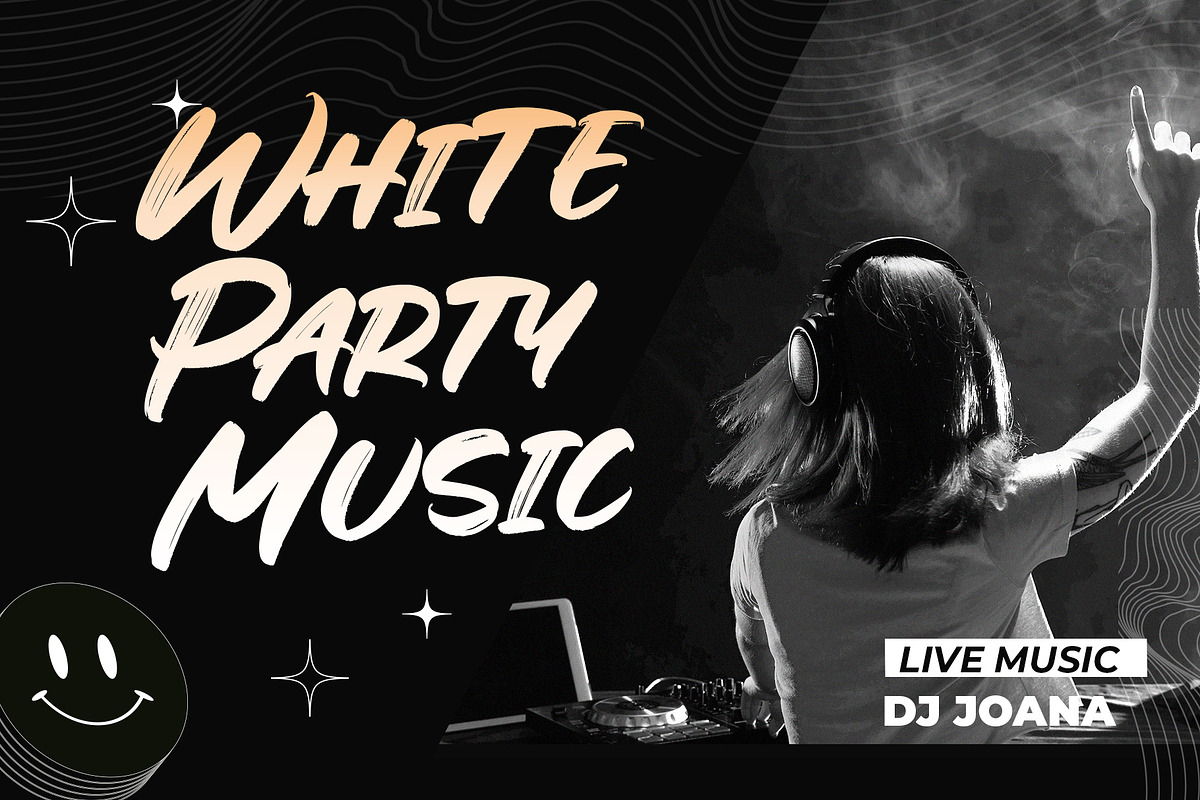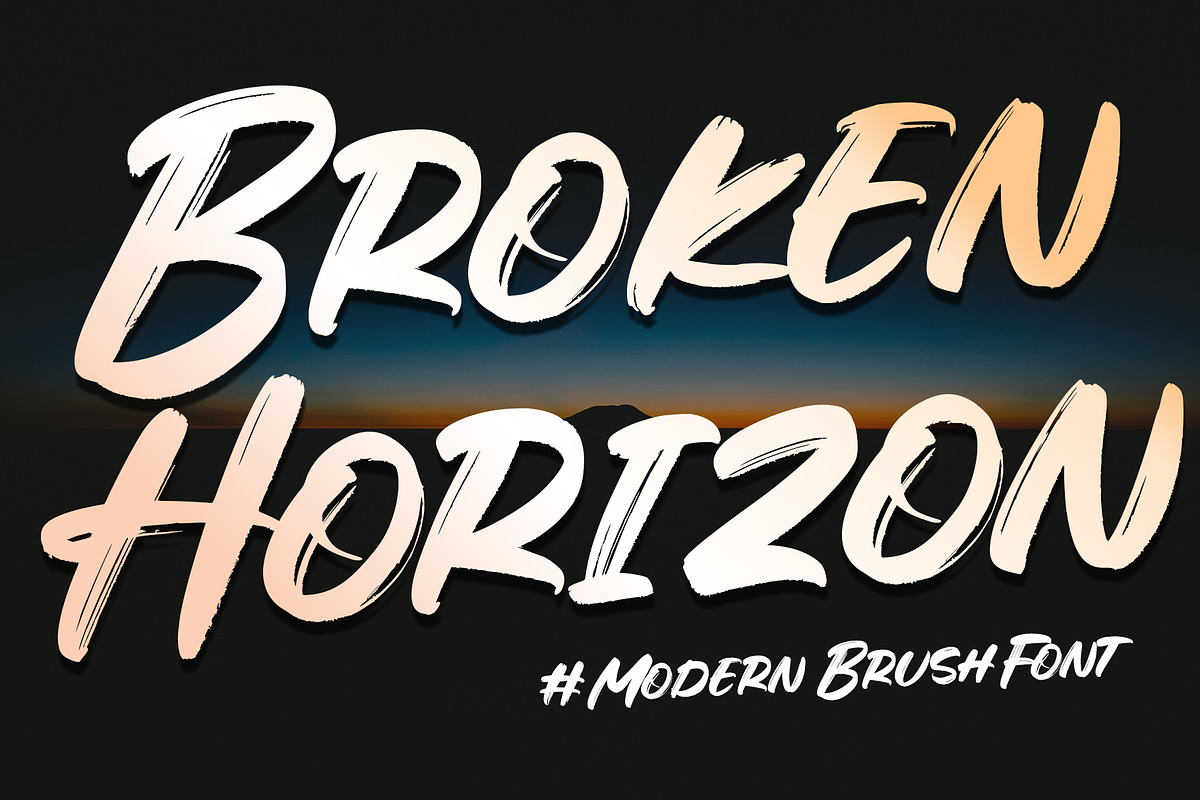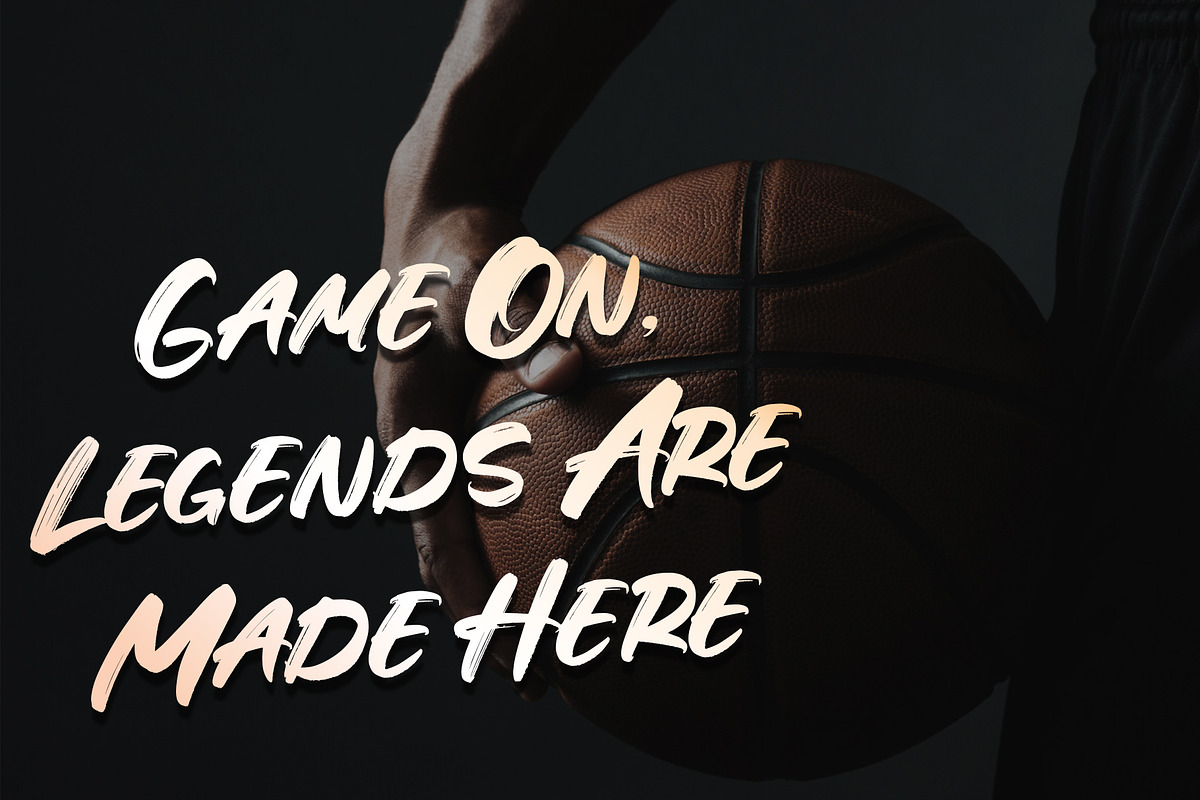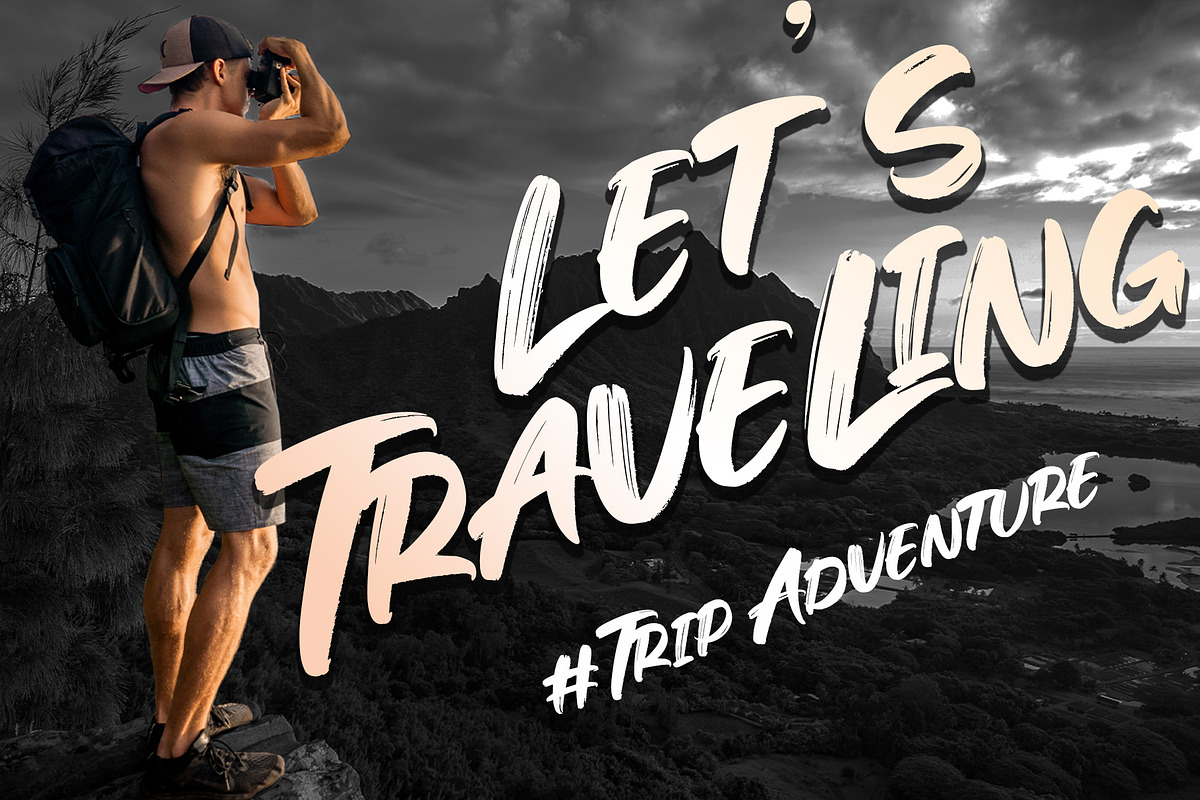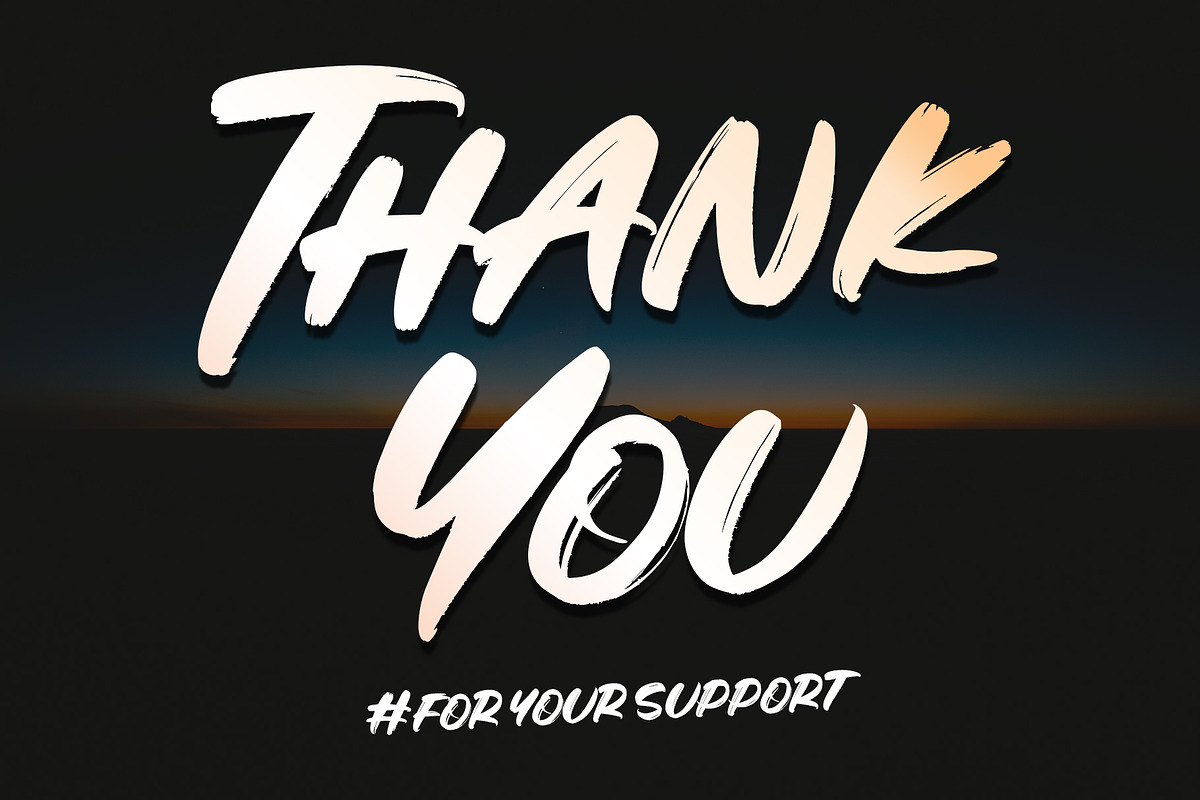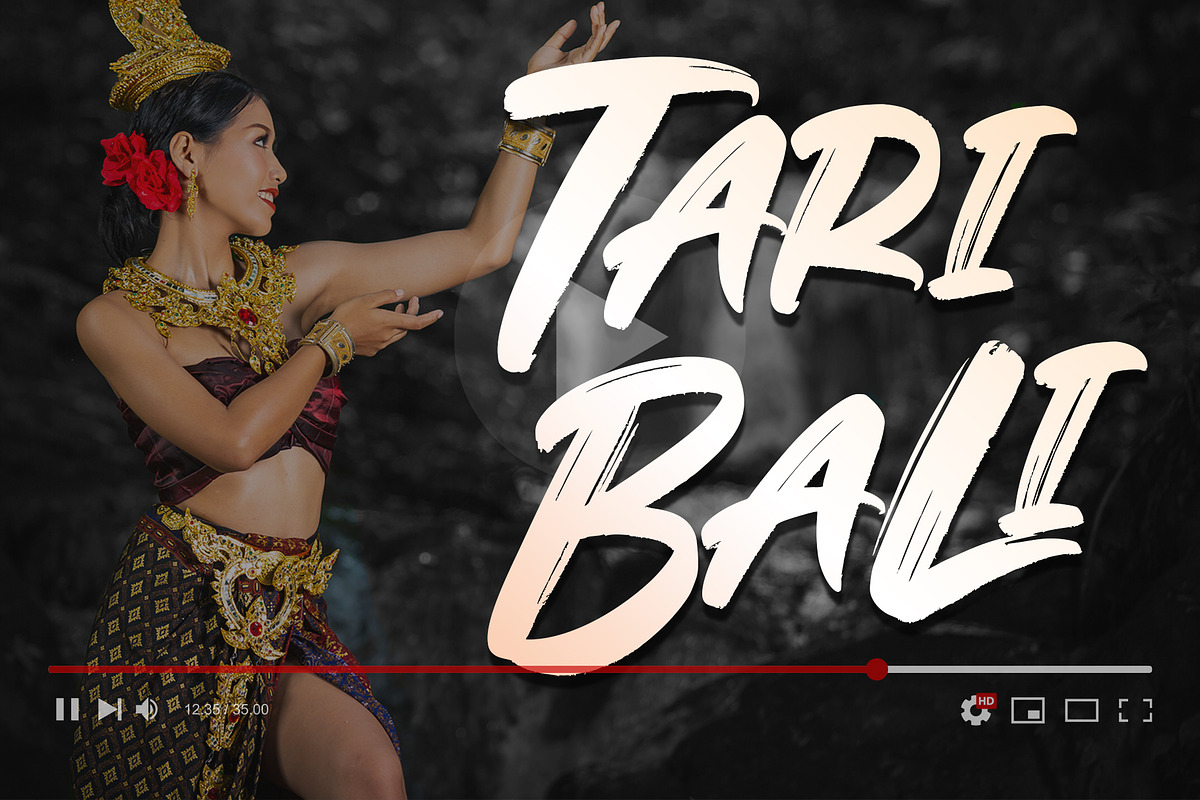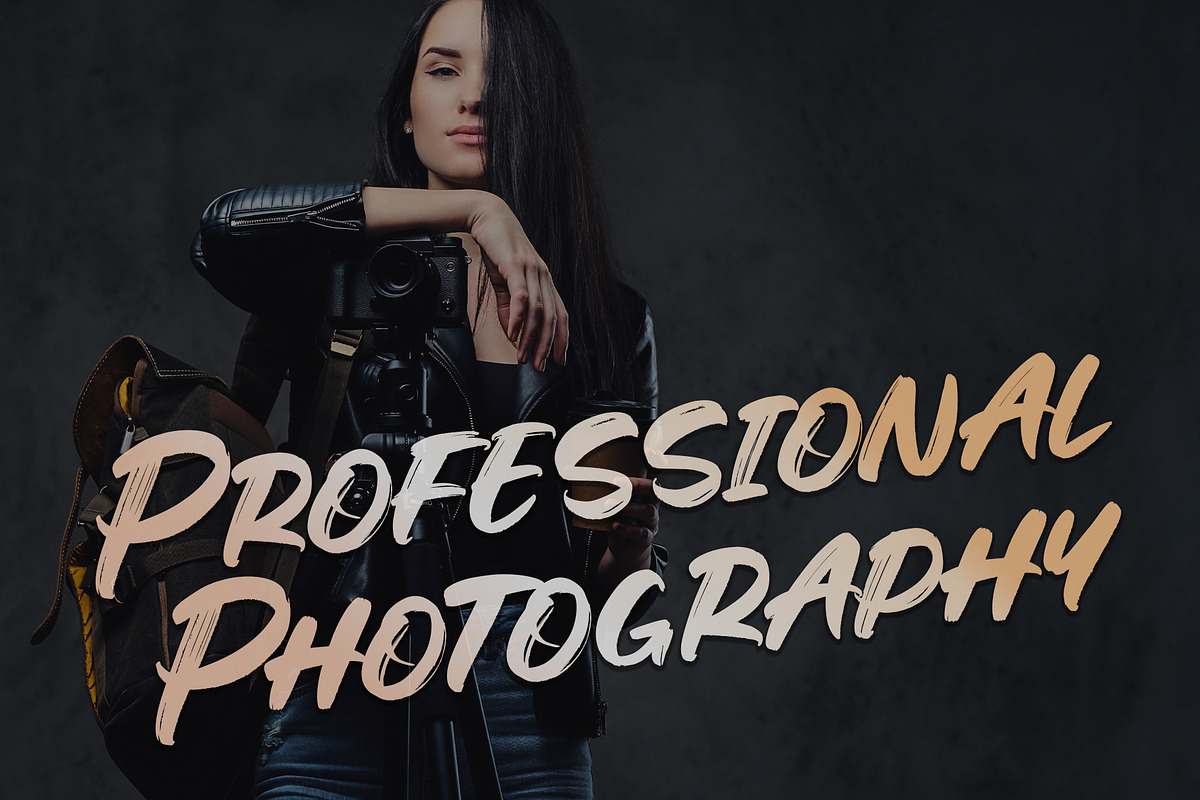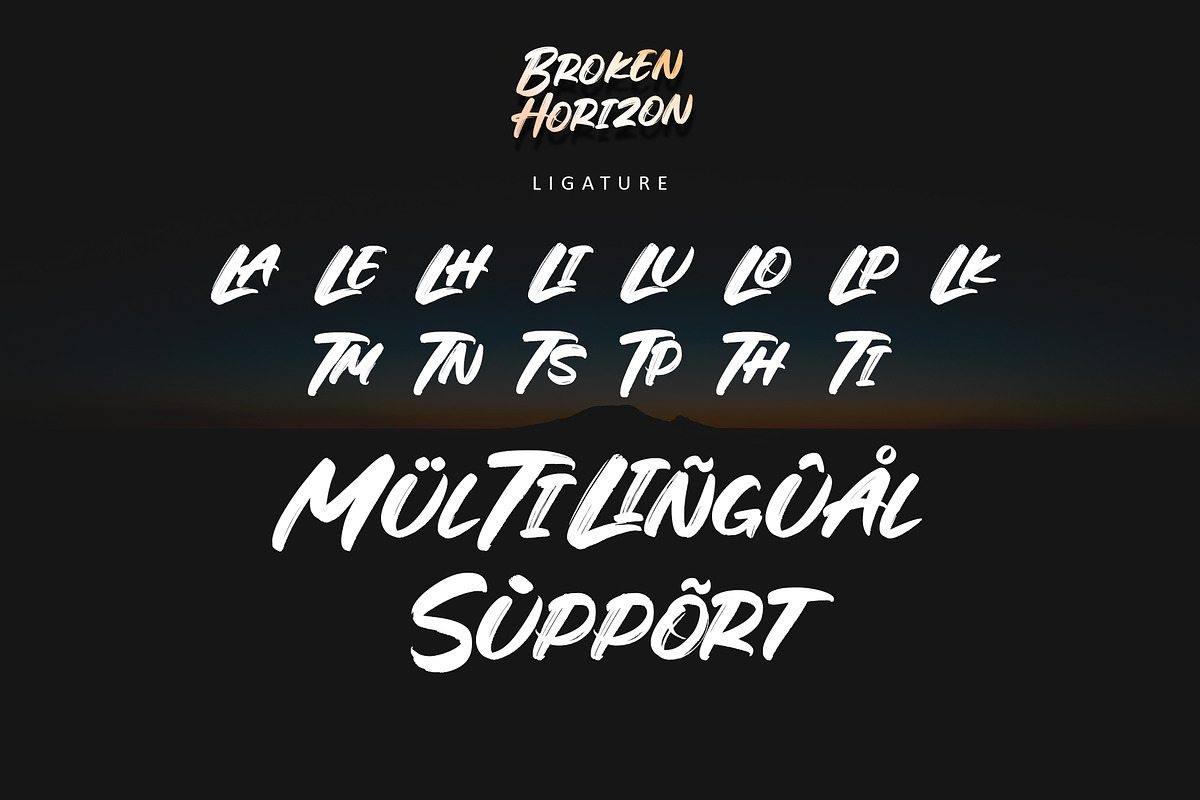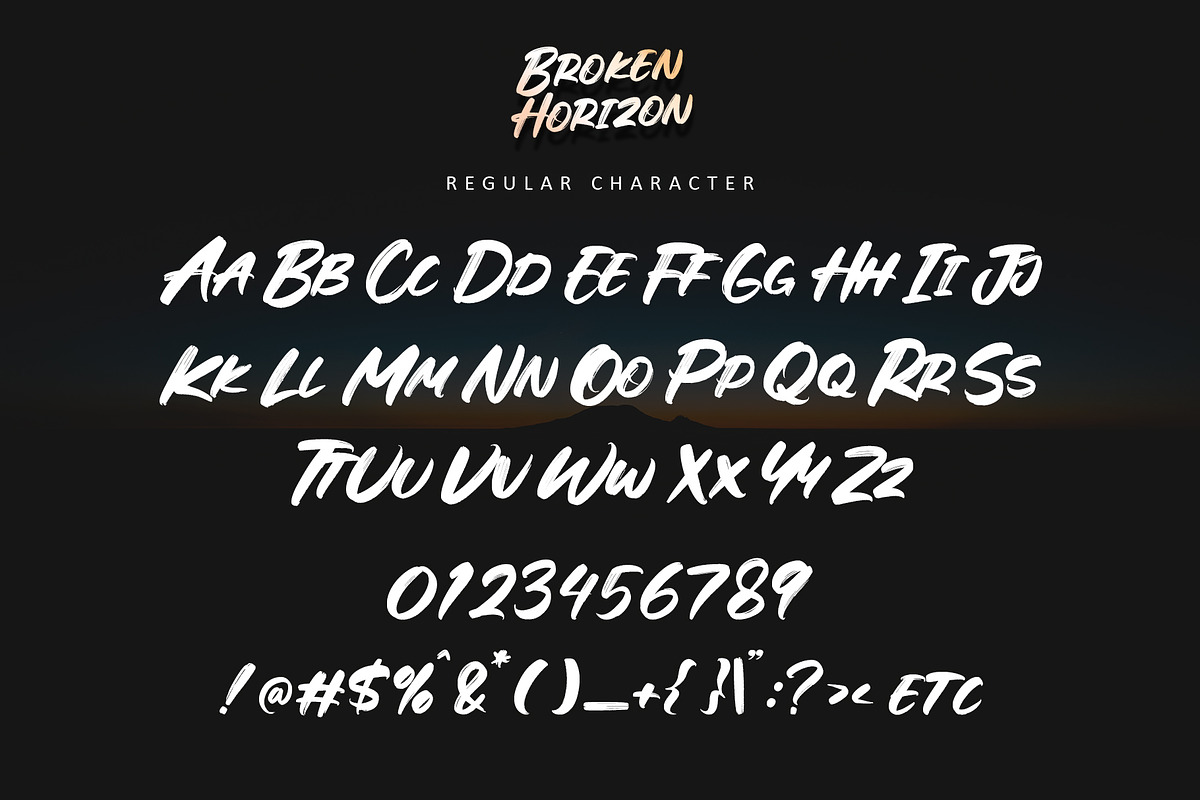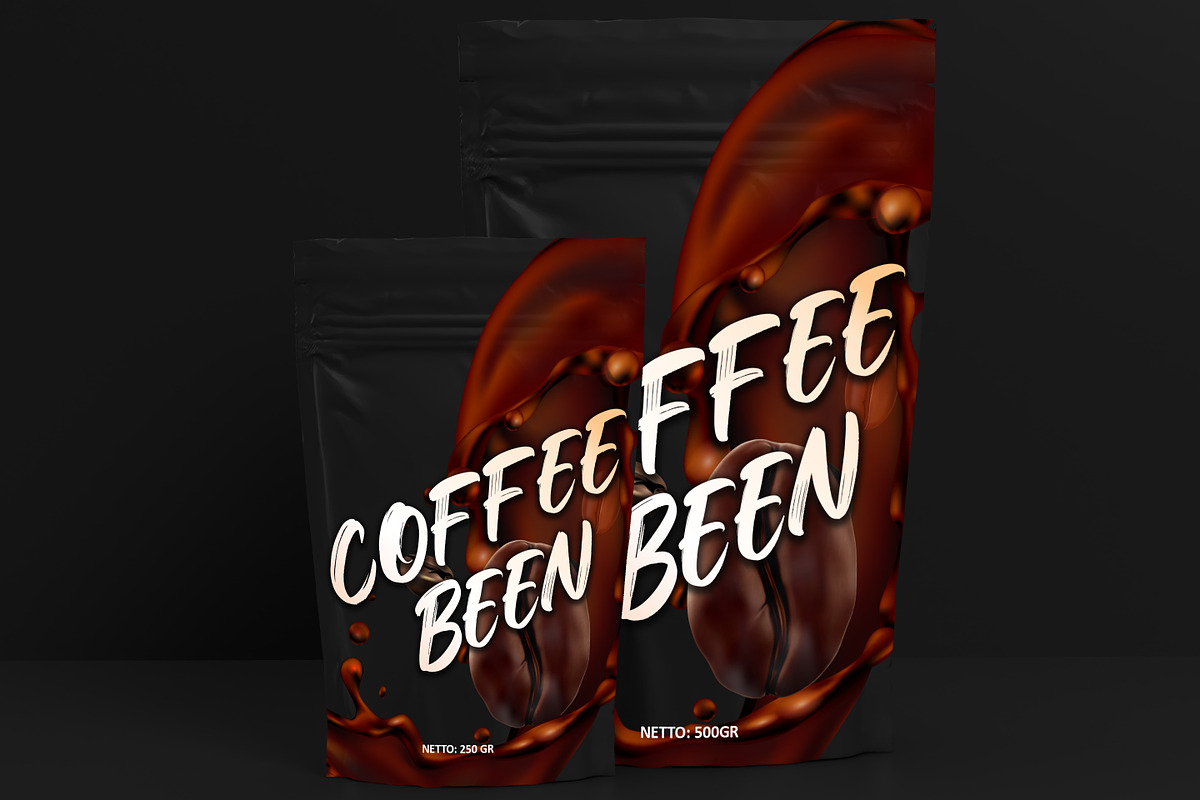
Broken Horizon
Introducing Broken Horizon, a natural brush font that combines bold energy with rugged artistry. Featuring dynamic, sweeping strokes and a textured finish, this font adds a handcrafted, powerful touch to your designs. Perfect for striking logos, bold posters, and edgy branding, Broken Horizon exudes movement and creativity while offering seamless access to unique glyphs and swashes with PUA encoding. Elevate your projects with the raw intensity and modern appeal of Broken Horizon, a font that transforms ideas into bold, unforgettable visuals.
- Support multilingual; ä ö ü Ä Ö Ü ß ¿ ¡
- lowercase and uppercase letters